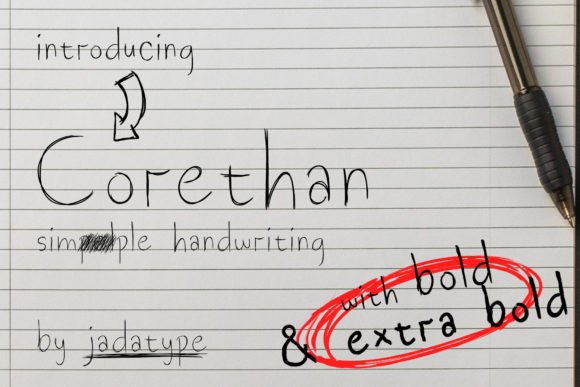
Welcome to the world of Corethan, a delightful and playful handwritten display font brimming with personality and charm. Designed by jadatype, this font exudes a sense of carefree artistry, making it the perfect choice for adding a touch of whimsy to your creative projects.
With Corethan, you can effortlessly create eye-catching headlines, logos, branding materials, and social media graphics that pop. Its playful and informal style is sure to capture attention and leave a lasting impression. Imagine your designs coming alive with Corethan's unique and engaging aesthetic, creating a visual experience that resonates with your audience.
Slip into the shoes of an artist and explore the endless possibilities that Corethan offers. Its carefully crafted characters, with their natural flow and expressive strokes, invite you to unleash your creativity. From heartfelt messages to whimsical illustrations, Corethan becomes your faithful companion, transforming your ideas into stunning visual masterpieces.